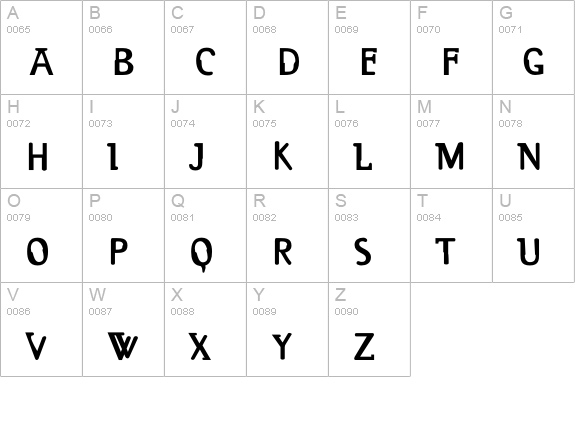
2RebelsDeux-Black is a maximum-weight, dramatic variant in the 2RebelsDeux typeface family \xE2\x80\x94 well suited to maximum-impact headlines, posters, and packaging.
2RebelsDeux-Black is a bold and stylish font that exudes a rebellious and edgy vibe. With its strong and eye-catching design, this font is perfect for making a statement and standing out from the crowd. The sleek and modern look of 2RebelsDeux-Black makes it ideal for a variety of design projects, from posters and flyers to branding and social media graphics. The best part? 2RebelsDeux-Black is available for free download at FontsMarket.com. Whether you're a professional designer looking to add a unique touch to your work or a hobbyist looking to enhance your creative projects, this font is a must-have in your collection. Don't miss out on the opportunity to elevate your designs with the striking and impactful 2RebelsDeux-Black font, available for free at FontsMarket.com.